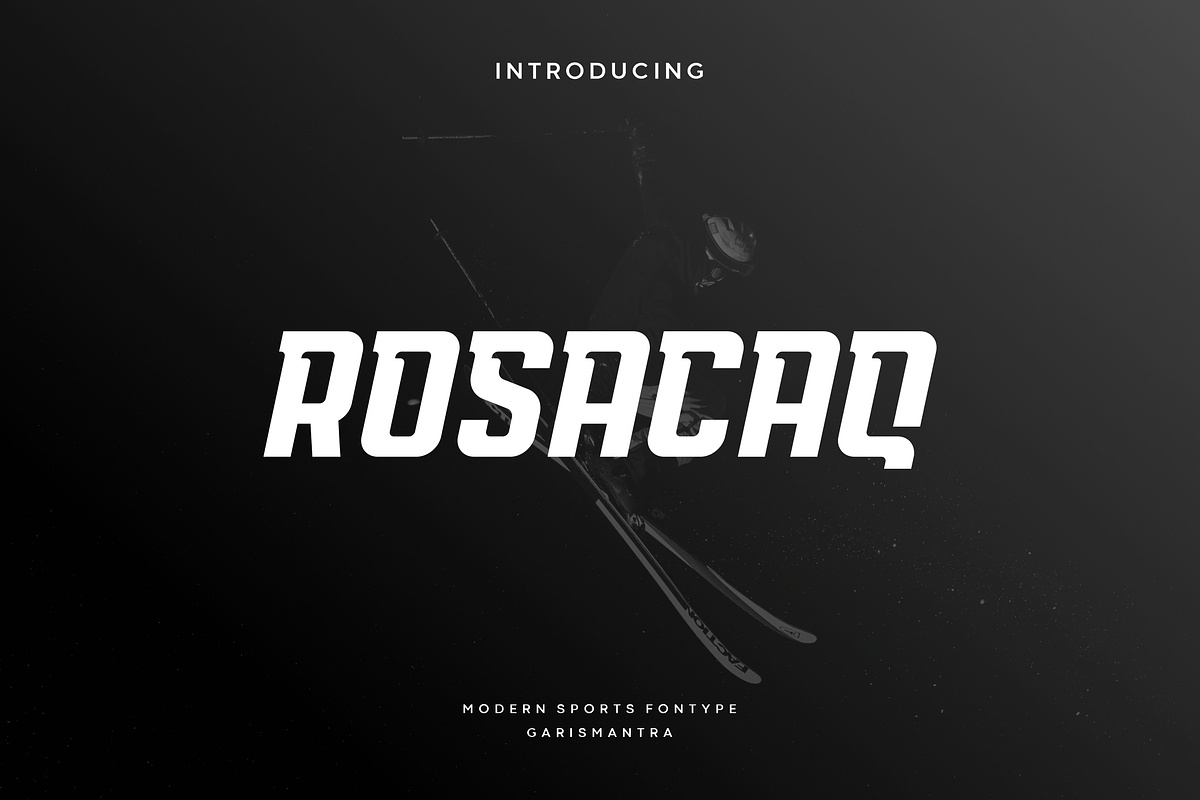
Rosacaq Font Free Download is a modern and elegant typeface designed with clean lines and a touch of sophistication. Perfect for branding, logo design, headlines, and other creative projects, Rosacaq offers a versatile design suitable for both digital and print applications. Its minimalistic structure ensures legibility and clarity, making it ideal for modern, stylish projects that require a refined typographic approach.
Whether you're creating a chic brand identity or working on a sleek website design, Rosacaq brings a professional and contemporary look to your work.